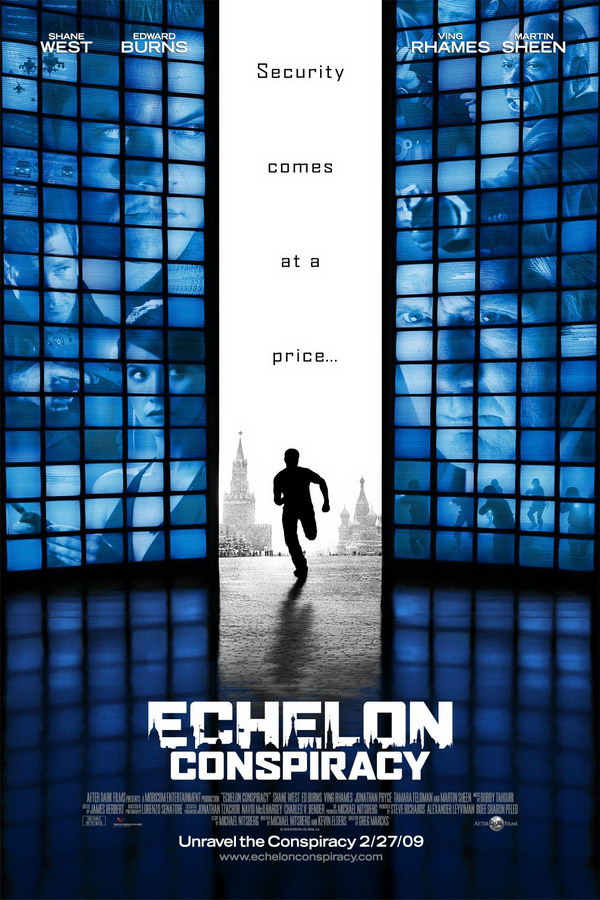
Echelon Conspiracy Font
The title of the movie on the poster was likely created using Agency FB Wide Black, a typeface that originated as a titling font designed by Morris Fuller Benton. This font is available for purchase here.